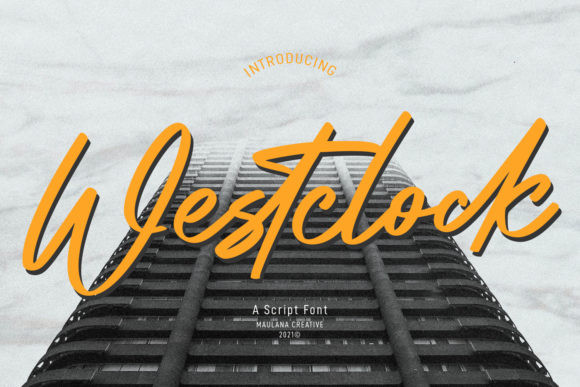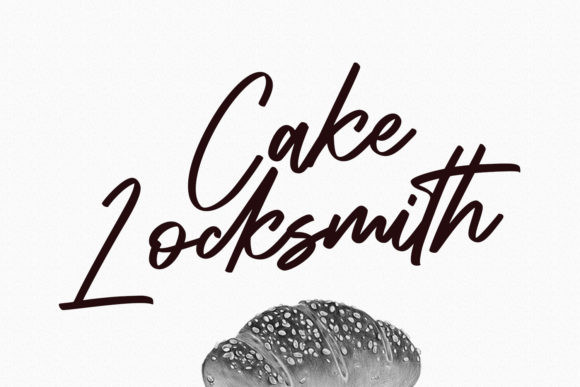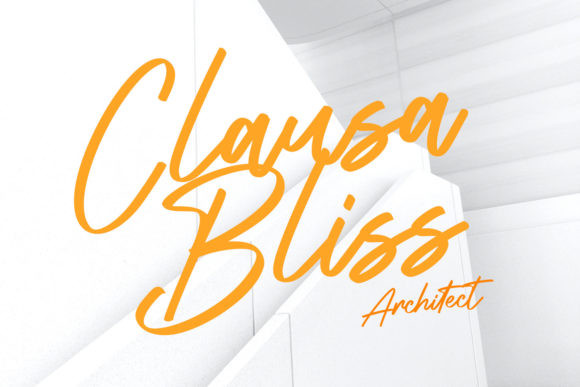
Westclock Font
Westclock is a chic, flowing script font that emanates sophistication and elegance. Its stylish alternates and ligatures make this font the perfect match for any project.